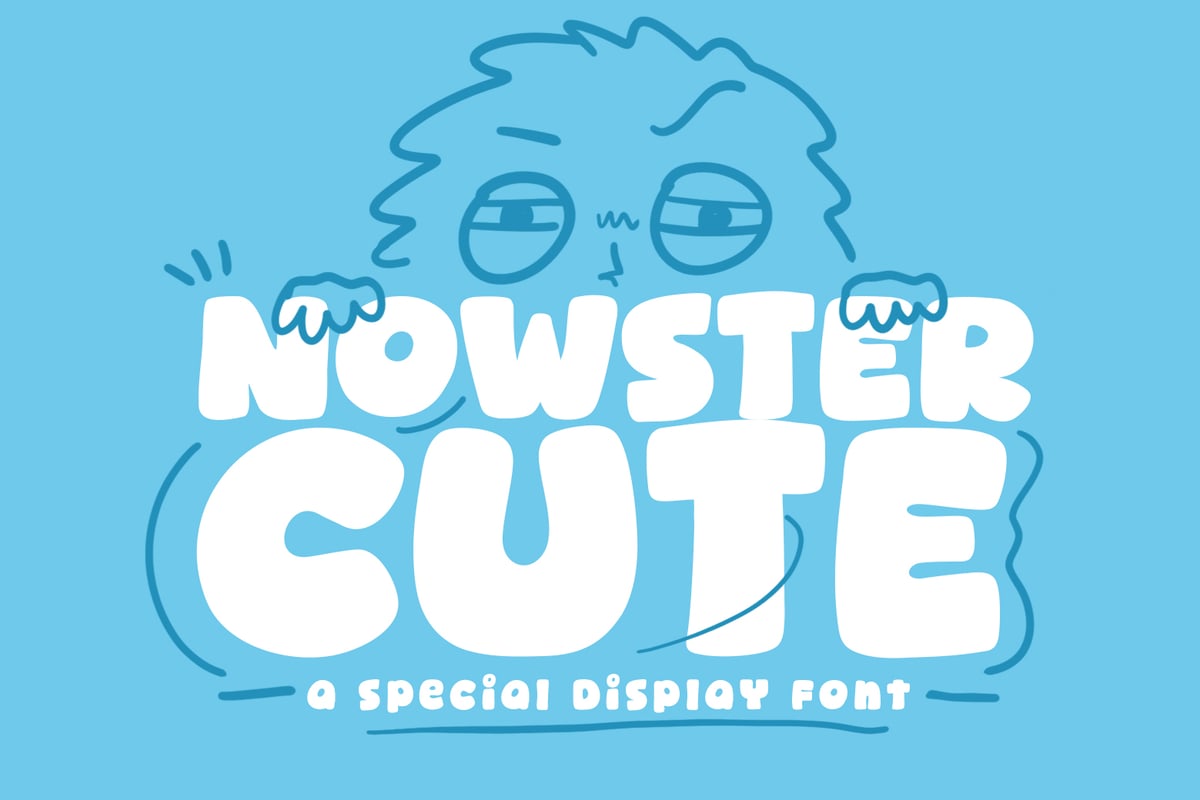
Nowster Cute - Cozy & Display Font
Bring pure childlike wonder to your designs with Nowster Cute's irresistibly cozy display font!
This contemporary handwritten typeface bursts with vibrant personality and spirited energy that instantly captures attention. Every character overflows with charm, making it the perfect choice for creating memorable designs that truly stand out from the crowd.
Nowster Cute's bold presence and delightful character design offer remarkable versatility across multiple design applications:
- Eye-catching posters and promotional materials
- Distinctive logos and branding projects
- Magazine layouts and editorial design
- Book covers that demand attention
- Banners and signage